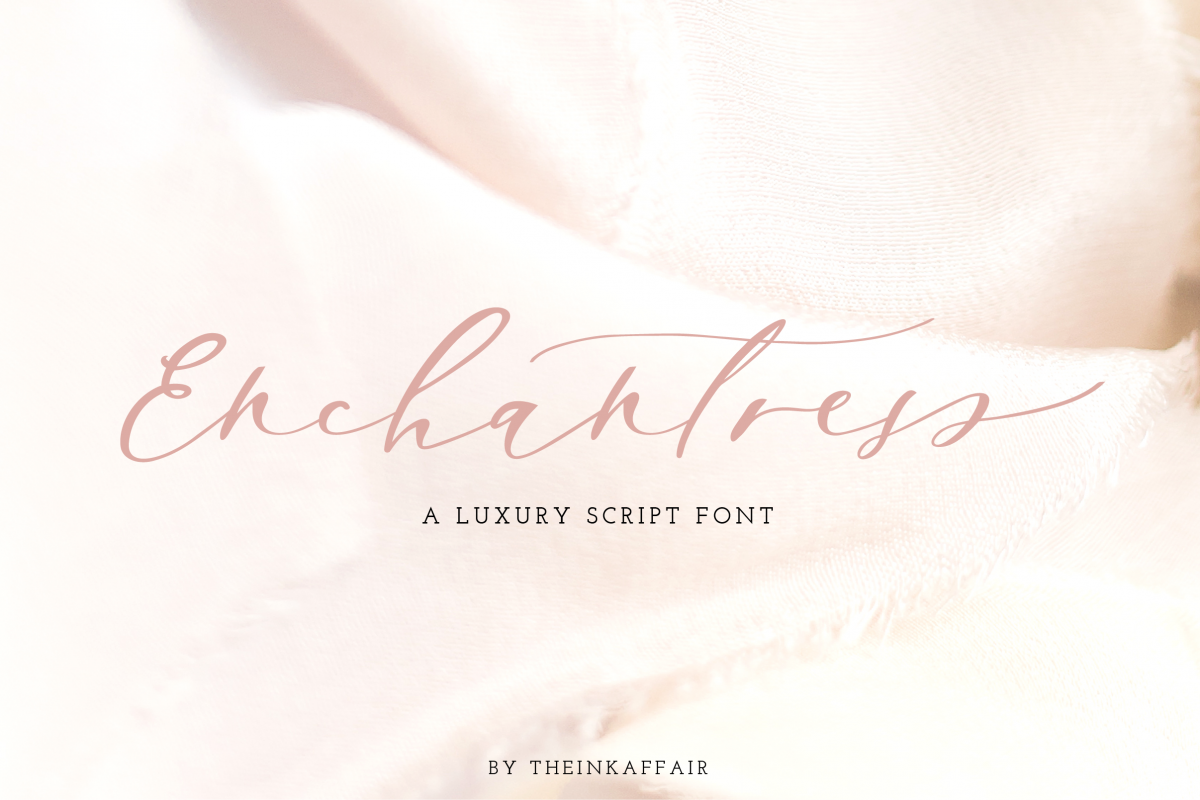
Enchantress | Luxury Font
Introducing, Enchantress, a classy hand-lettered luxury script font. This calligraphy font is perfect for logos, branding, event invites, social media posts posts and so much more!
Enchantress includes a full set of gorgeous uppercase and lowercase letters, international support, numerals, punctuations and a range of ligatures to help you create realistic hand lettering. It also includes 2 sets of lowercase letters with beginning and ending swashes to add to the authenticity.